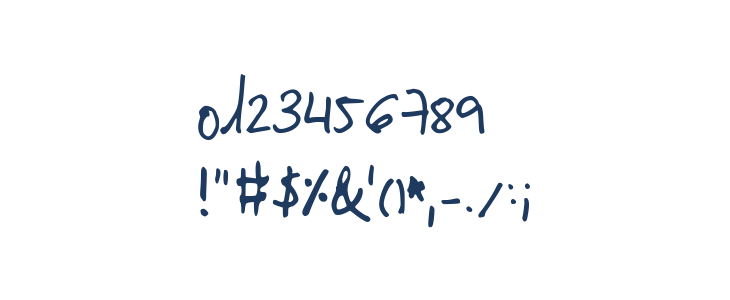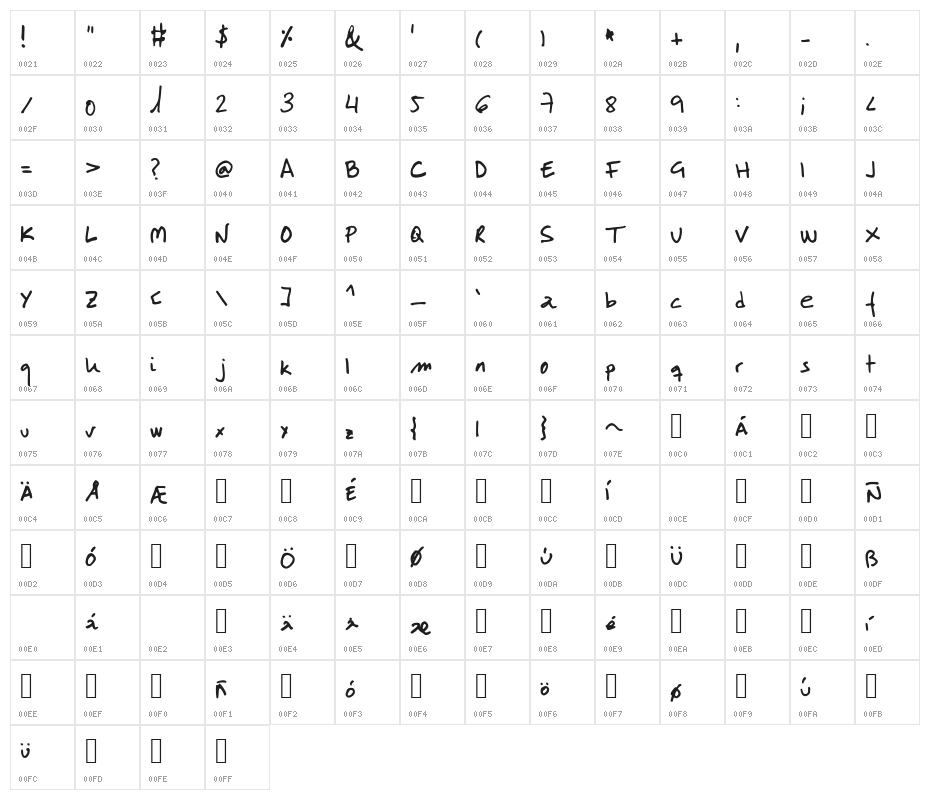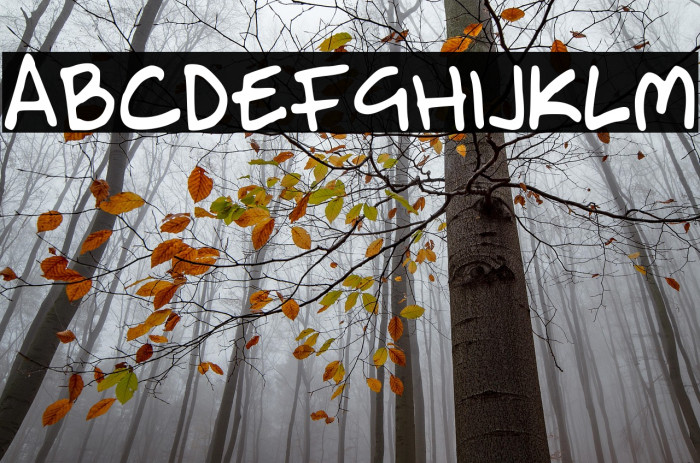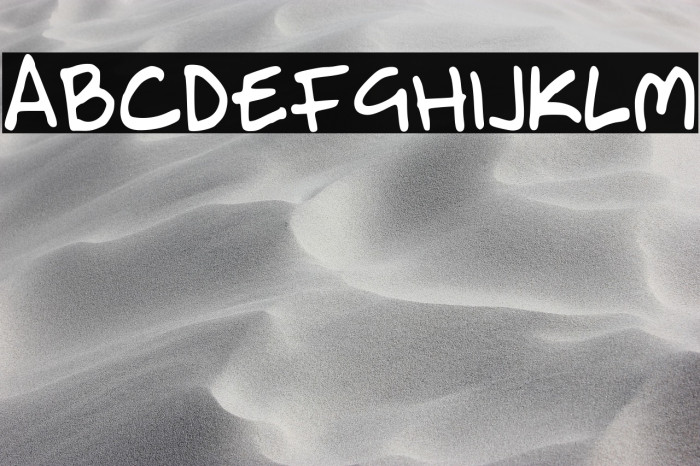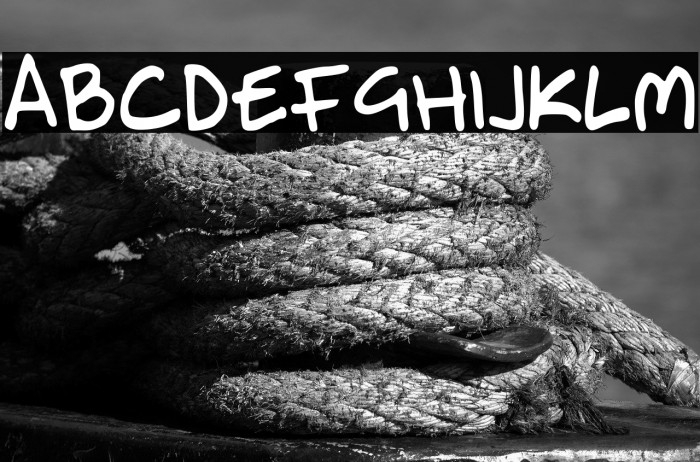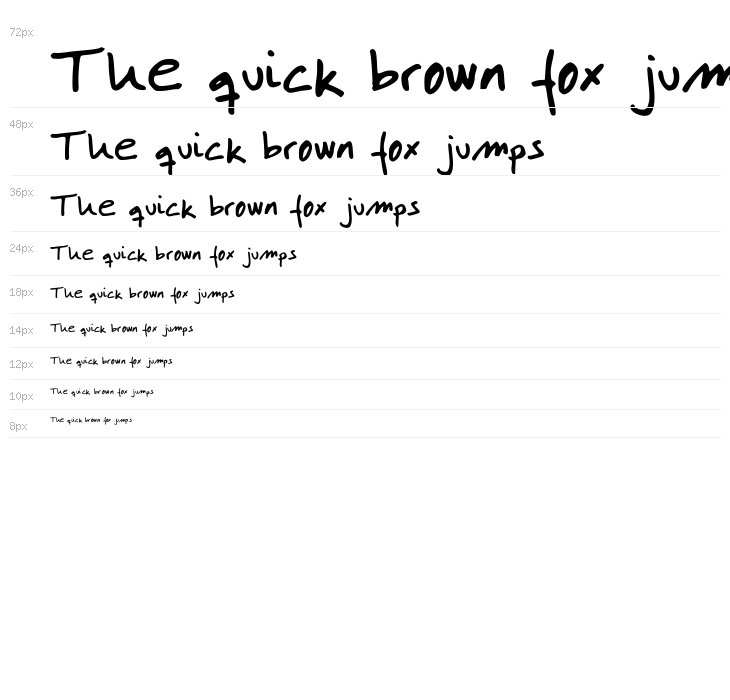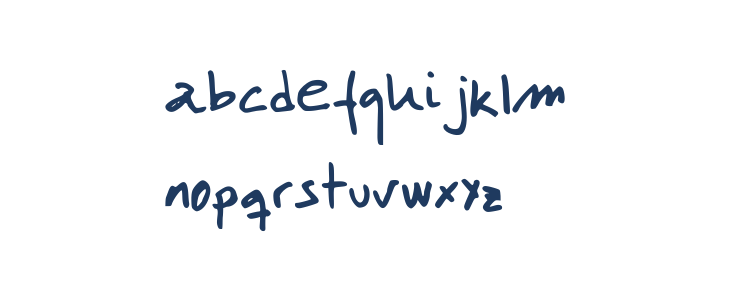
LabMol Font
LabMol Description
This font features a casual, handwritten style with a playful and informal appearance. The characters are slightly irregular, giving it a personal and authentic feel. The uppercase letters are bold and rounded, while the lowercase letters maintain a consistent flow with a slight slant, enhancing the handwritten effect. The numerals and special characters follow the same style, ensuring uniformity across all glyphs. This font is ideal for projects that require a personal touch or a relaxed, friendly vibe.
Overall StyleCasual
Use CaseLogos, Headlines, Informal Text
Proposed ProjectsIdeal for greeting cards, personal notes, informal invitations, and creative projects that require a personal touch.